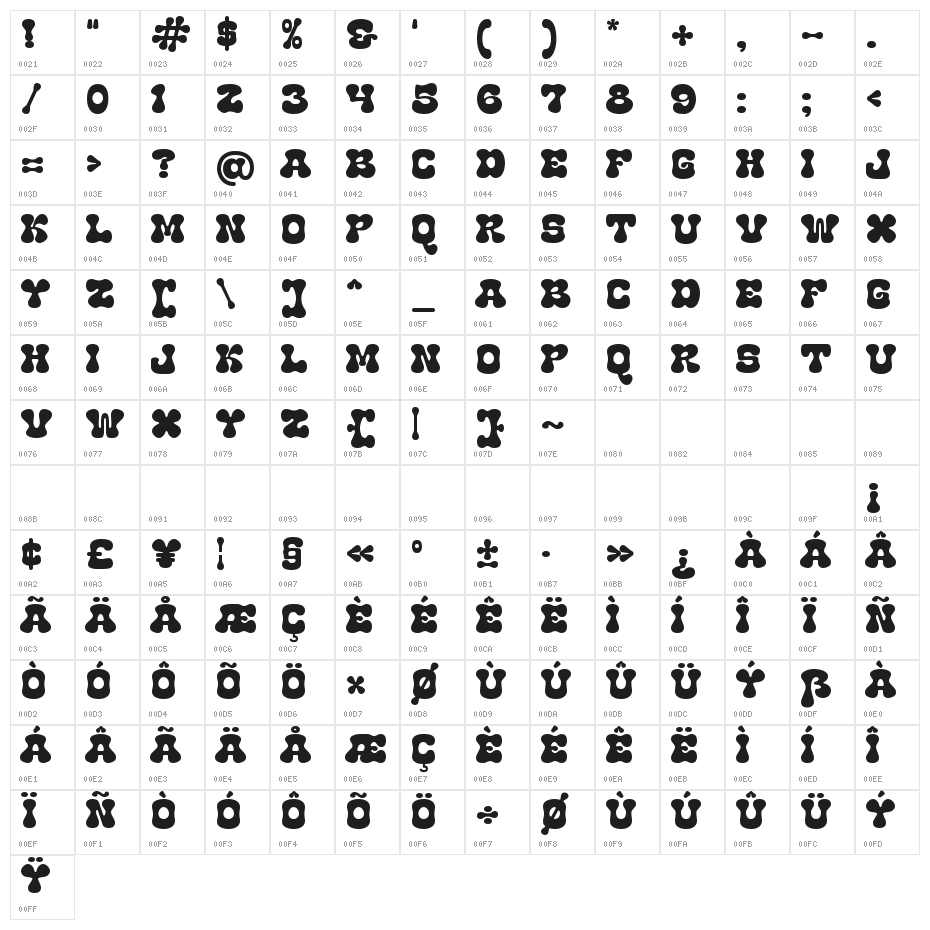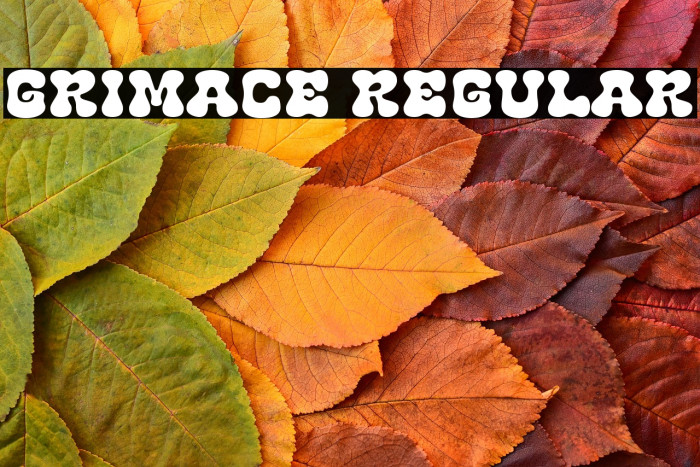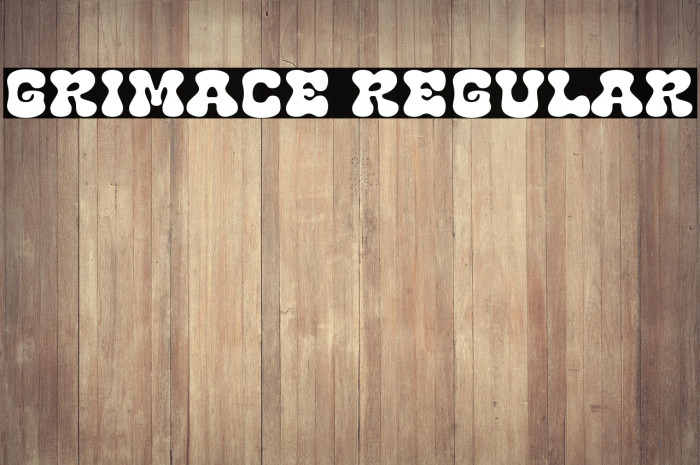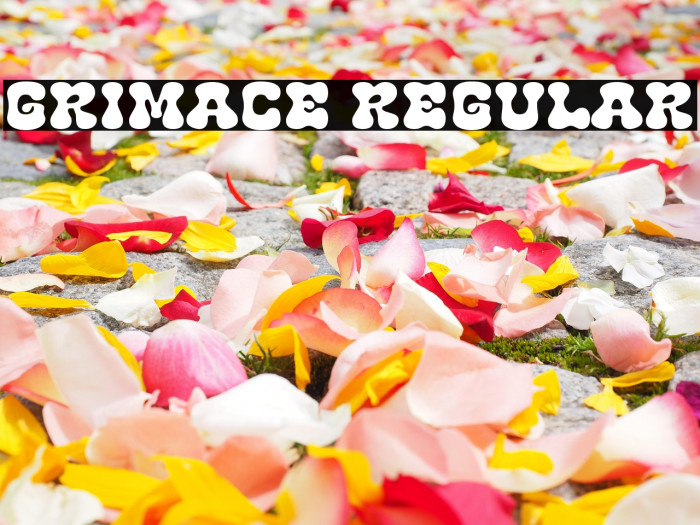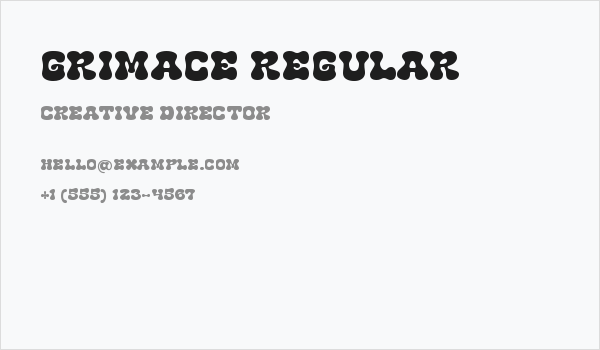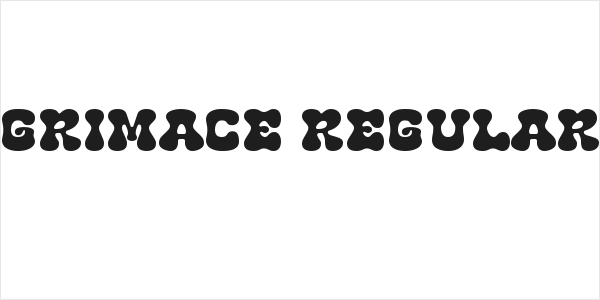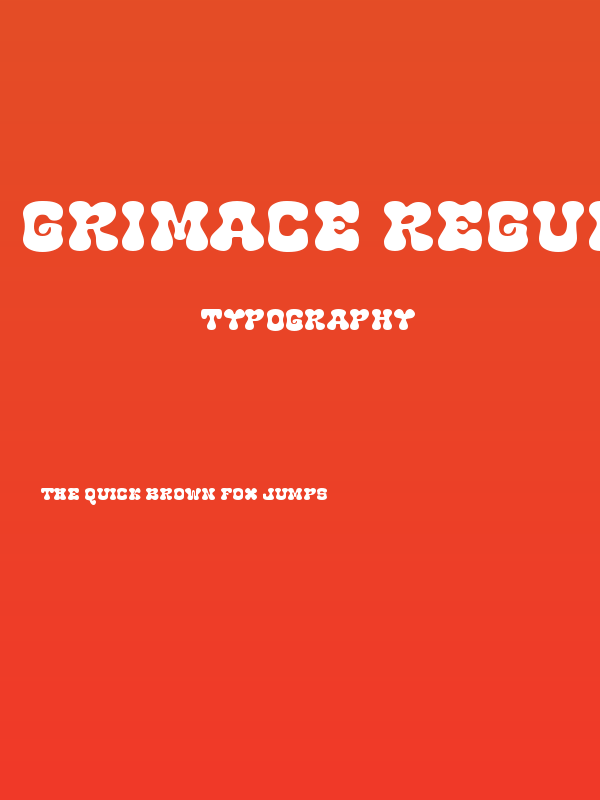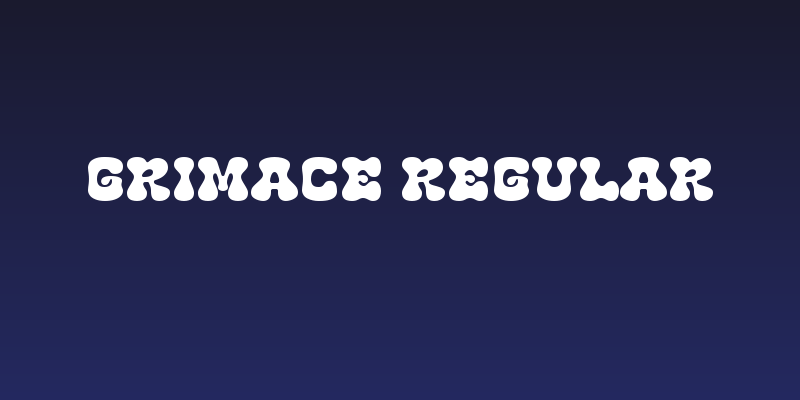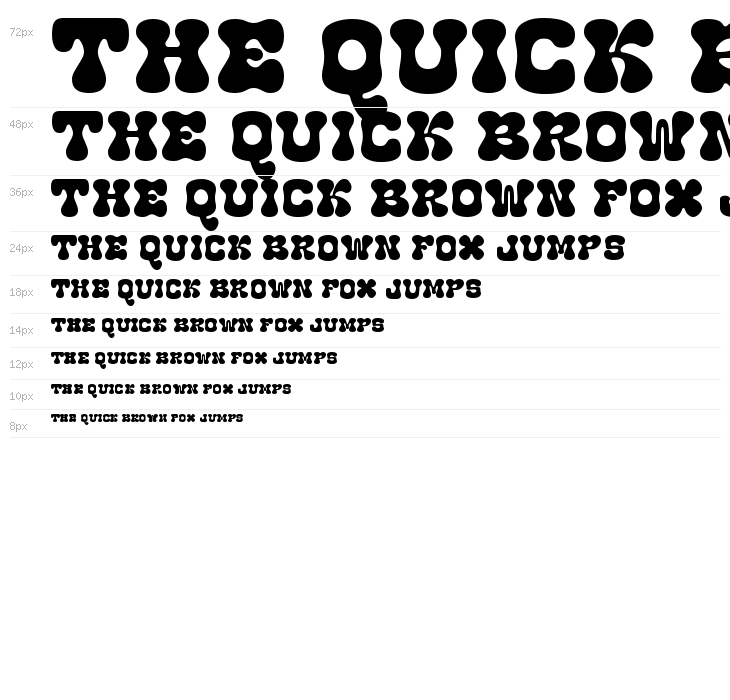
Grimace Regular Font
Grimace Regular Description
A bold, playful font with rounded, blob-like shapes and high contrast, giving it a unique and eye-catching appearance.
| Overall Style | Playful, Unique |
| Proposed Projects | Posters, children's books, playful branding. |